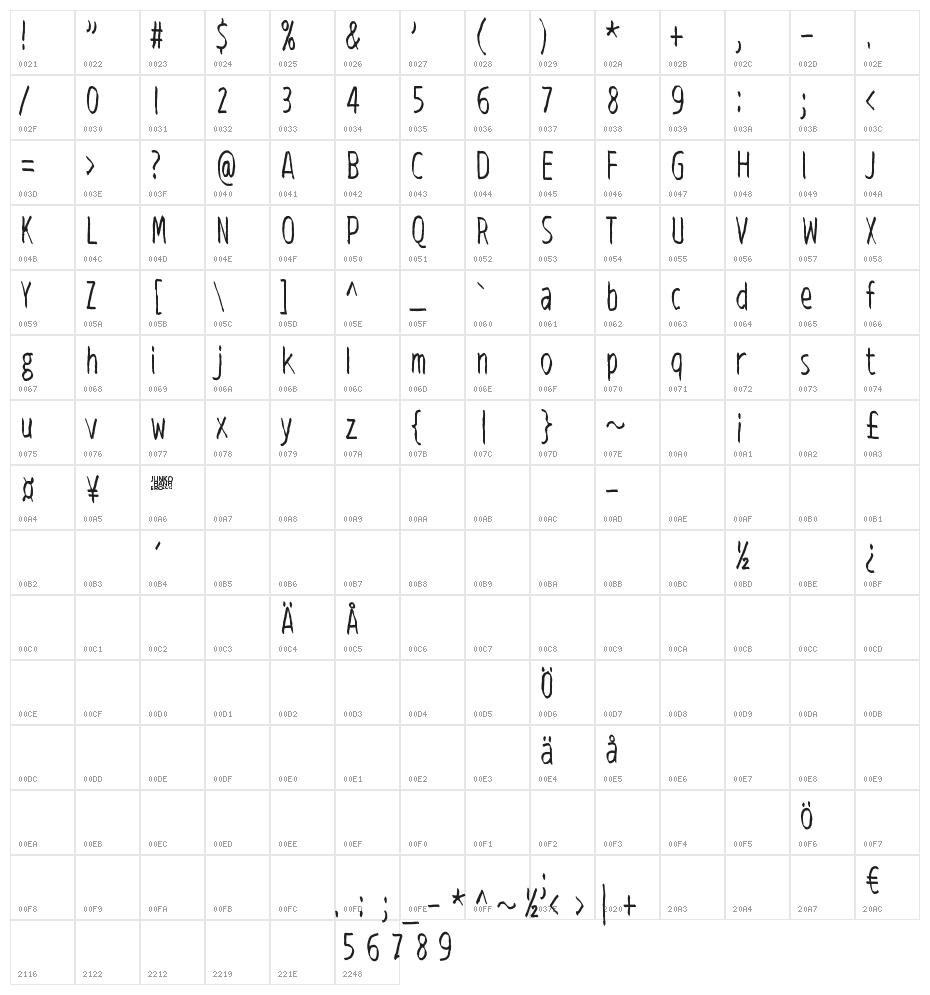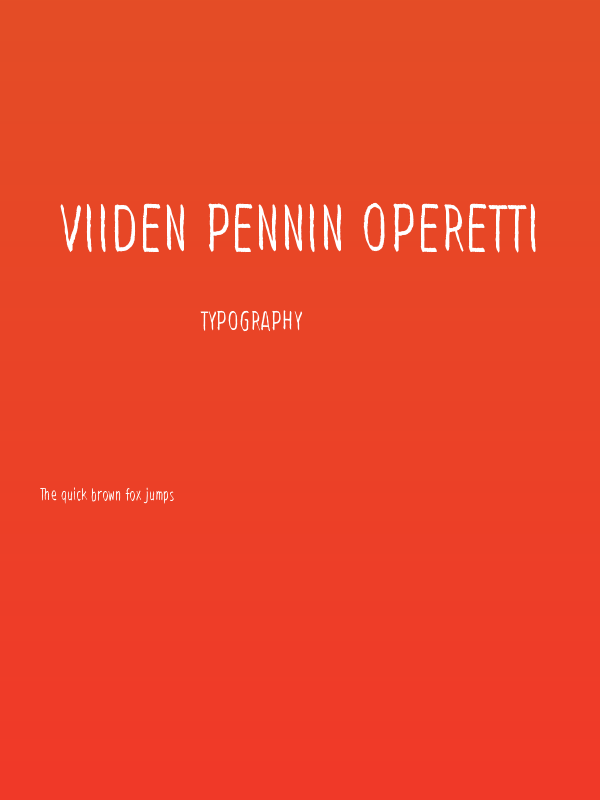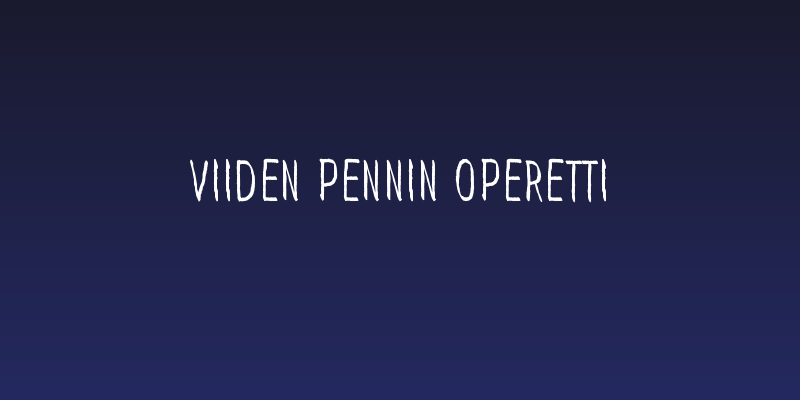
Viiden pennin operetti Font
Viiden pennin operetti Description
This font exhibits a hand-drawn, organic style with a playful and informal appearance. The characters are slightly irregular, giving it a whimsical and artistic feel. The strokes are uneven, adding to the handmade aesthetic, while maintaining legibility. The uppercase and lowercase letters are distinct, with a slight slant that suggests movement and energy. The numbers and special characters follow the same playful design, making it suitable for creative projects. The overall look is casual and approachable, perfect for conveying a friendly and personal touch.
| Proposed Projects | Ideal for children's books, greeting cards, casual branding, and artistic posters. |